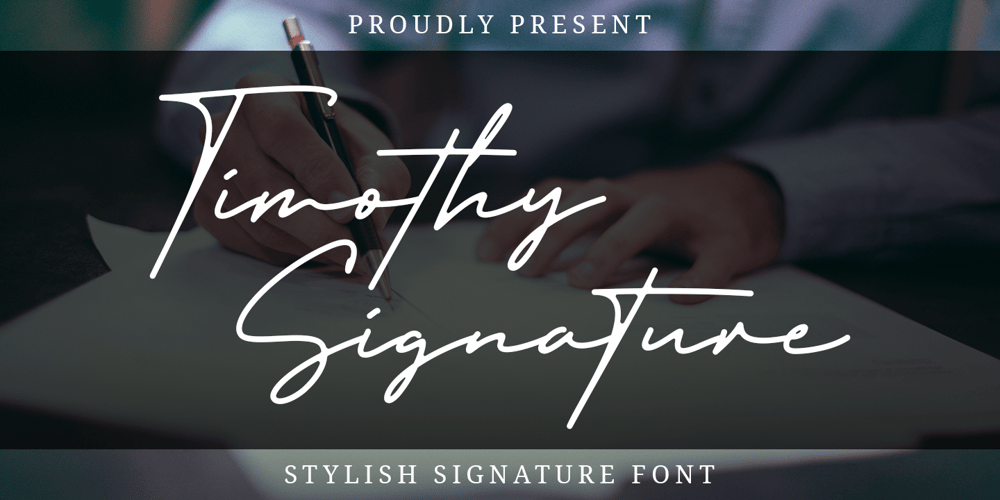
Timothy Signature Font Family was designed by Hamzah Muhamad Ihsan and published by Typesthetic Studio. Timothy Signature contains 1 styles and family package options. Timothy Signature is a flowing handwritten font, described by an elegant touch, perfect for your favorite projects. Fall in love with its incredibly distinct and timeless style and use it to create spectacular designs! Fall in love with its incredibly versatile style and use it to create gorgeous wedding invitations, beautiful stationary art, eye-catching social media posts, and much more!